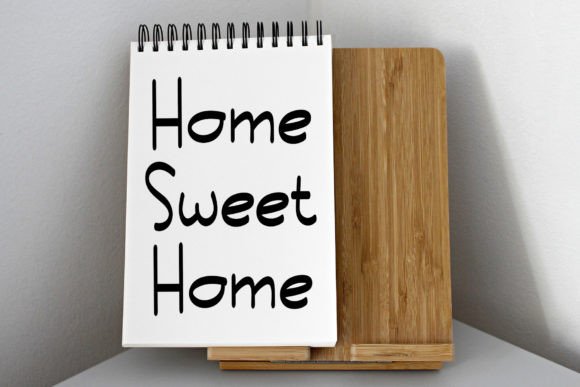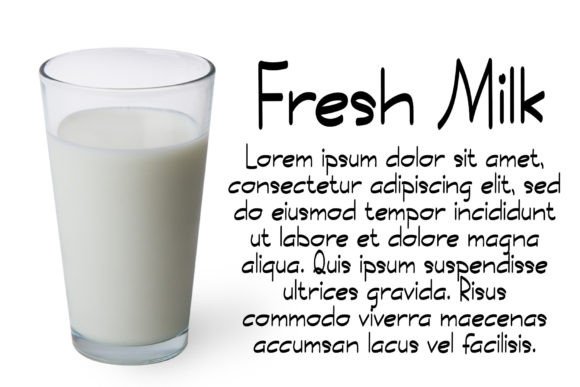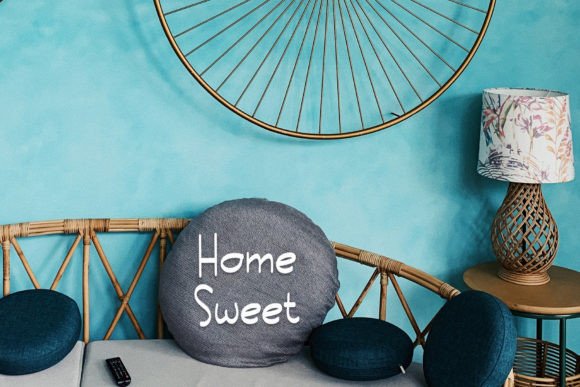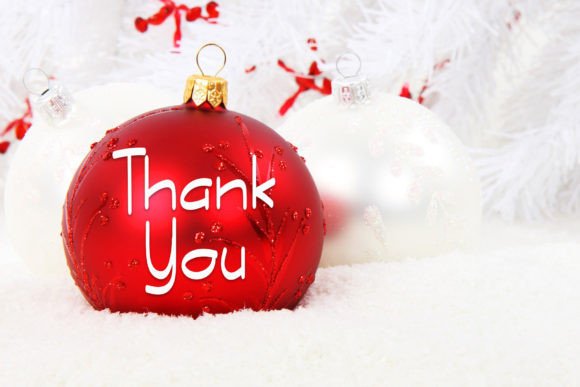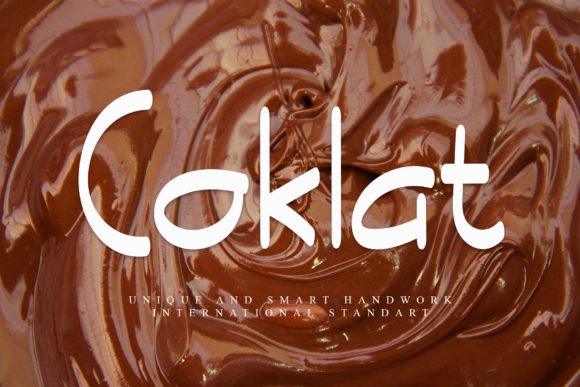
Coklat Font: Elevate Your Designs with Elegance and Sophistication
In the world of typography, a well-crafted font can make all the difference in elevating your design to the next level. For designers and crafters seeking a unique and elegant touch, Coklat Font is an exceptional choice. This stunning font is perfect for a variety of applications, including wedding invitations, greeting cards, billboards, logos, business cards, and more.
The Unique Charm of Coklat Font
Coklat Font boasts a distinctive, handwritten aesthetic that adds a touch of sophistication to any design. Its varied baseline, crafted with a natural, hand-made touch, gives the font a sense of organic elegance. This characteristic makes Coklat Font particularly well-suited for designs that require a personal, human feel. Whether you’re creating wedding invitations, branding materials, or greeting cards, Coklat Font is sure to impress.
Key Features of Coklat Font
- Unique and Elegant Design: Coklat Font features a one-of-a-kind, elegant design that sets it apart from more traditional fonts.
- Handwritten Touch: The font’s natural, hand-made touch adds a sense of warmth and personality to your designs.
- Varied Baseline: The varied baseline gives Coklat Font a dynamic, organic feel that enhances its visual appeal.
- PUA Encoded: Coklat Font is PUA (Private Use Area) encoded, allowing easy access to all glyphs and swashes. This feature makes it simple to customize your text and add unique flourishes to your designs.
Applications for Coklat Font
Coklat Font’s versatility makes it suitable for a wide range of design applications. Here are a few ideas to get you started:
- Wedding Invitations: Add a touch of romance and sophistication to your wedding invitations with Coklat Font.
- Greeting Cards: Create beautiful, personalized greeting cards for special occasions like birthdays, anniversaries, and holidays.
- Billboards and Posters: Use Coklat Font to create eye-catching billboards and posters that showcase your brand or message.
- Logos and Branding: Incorporate Coklat Font into your logo or branding materials to add a touch of elegance and sophistication.
- Business Cards: Stand out from the crowd with beautifully designed business cards featuring Coklat Font.
Tips for Using Coklat Font
To get the most out of Coklat Font, consider the following tips:
- Experiment with Swashes: Take advantage of Coklat Font’s PUA encoding to add unique swashes and flourishes to your text.
- Play with Font Sizes: Coklat Font looks great in a variety of font sizes, so don’t be afraid to experiment to find the perfect fit for your design.
- Pair with Complementary Fonts: Combine Coklat Font with complementary fonts to create visually appealing contrast and hierarchy in your design.
Coklat Font is a unique and elegant font that can elevate your designs to new heights. Its handwritten touch, varied baseline, and PUA encoding make it an excellent choice for designers and crafters seeking to add a touch of sophistication to their work. With its versatility and range of applications, Coklat Font is sure to become a go-to font in your design arsenal.